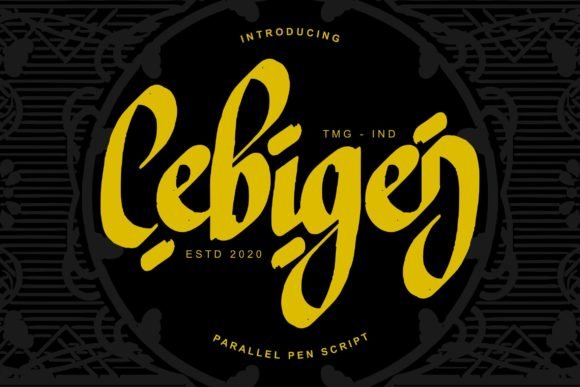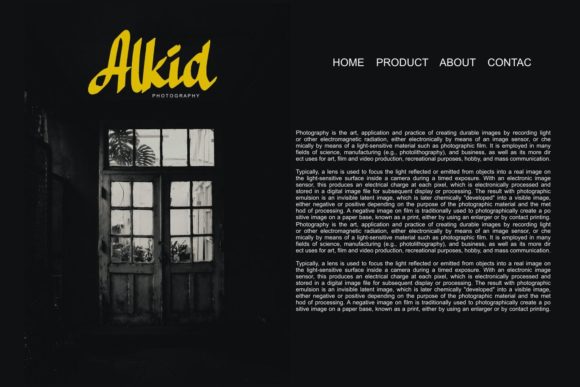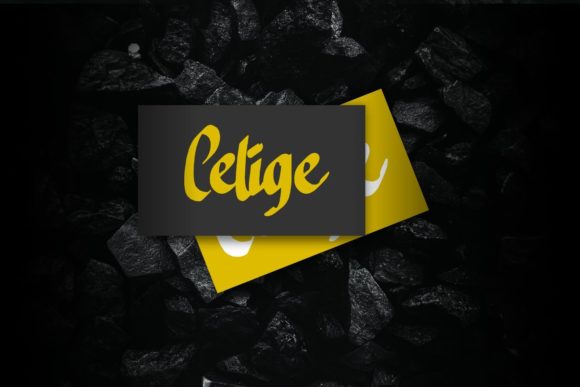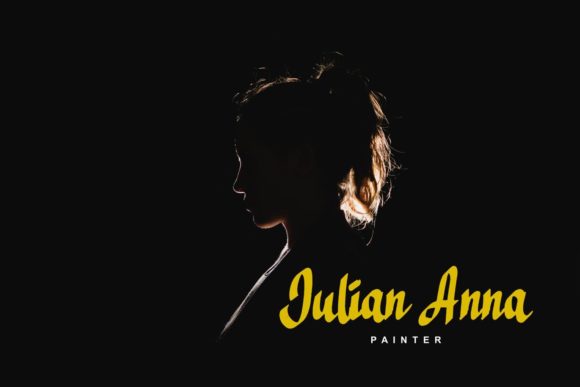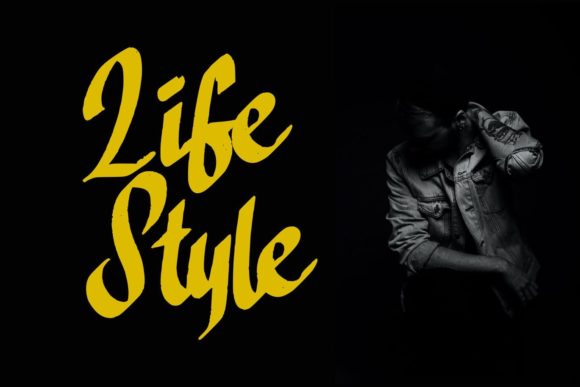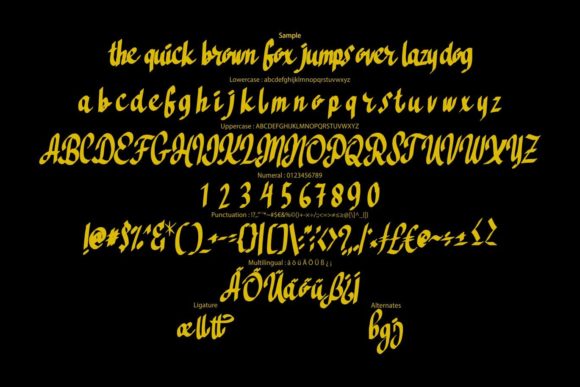
Discovering the Perfect Handwritten Touch
Have you ever been working on a design project, pouring your heart and soul into it, and then suddenly, it’s missing that one special something? That’s where inspiration strikes, and we stumble upon the perfect font to elevate our design to the next level. For me, that moment came when I found the Cebigej Font.
| 📌 Product Name | Cebigej Font |
| 👤 Author | FannanStudio |
This beautiful, casual, and thick lettered handwritten font was specifically crafted to add a touch of freshness and sophistication to any design. Whether you’re a seasoned designer or just starting out, the Cebigej Font is a valuable addition to your toolkit. Its unique character and versatility make it an ideal choice for a wide range of projects, from branding and marketing materials to digital products and more.
With the Cebigej Font, you’ll be able to add a personal and creative touch to your designs, setting them apart from the ordinary. Its beauty lies in its simplicity, making it easy to use and customize to suit your needs. Get ready to unleash your creativity and take your designs to new heights with the Cebigej Font.
Cebigej Font Key Features
- Unique Character Set: Features a unique combination of Latin and Cyrillic alphabets, making it suitable for multilingual applications.
- Language Support: Supports a wide range of languages, including English, Russian, and many others, making it a versatile font choice.
- Font Style: Available in regular, bold, italic, and bold-italic styles, providing a range of options for designers and typographers.
Cebigej Font Review
I recently had the chance to work with the Cebigej Font, and I must say it’s an interesting addition to any design project. Here’s what I think:
- Unique aesthetic: The Cebigej Font has a distinct, futuristic feel that can add a touch of modernity to any design.
- Readability: Despite its unusual shape, the font is surprisingly legible, especially at larger font sizes.
- Good for headlines: The Cebigej Font is well-suited for use in headings and titles, where its bold and eye-catching qualities can shine.
- Limited use in body text: While the Cebigej Font is great for headings, it may not be the best choice for body text, where readability is key.
- Not ideal for small font sizes: At smaller font sizes, the Cebigej Font can become difficult to read, making it less suitable for use in fine print or small text areas.
Overall, I think the Cebigej Font is a great addition to any designer’s toolkit, but it’s essential to use it judiciously. It’s perfect for making a statement or adding a touch of futurism to your designs, but may not be the best choice for every project.
Tips for Getting the Most Out of Cebigej Font
1. Use Cebigej font to create a unique and eye-catching headline.
2. Pair Cebigej font with a clean and simple font for body text.
3. Experiment with different font sizes and colors to create visual interest.
Cebigej font is commonly used for:
1. Headlines and titles.
2. Branding and logos.
3. Creative and artistic projects.